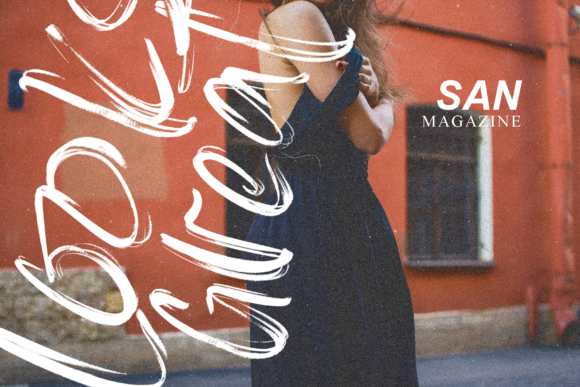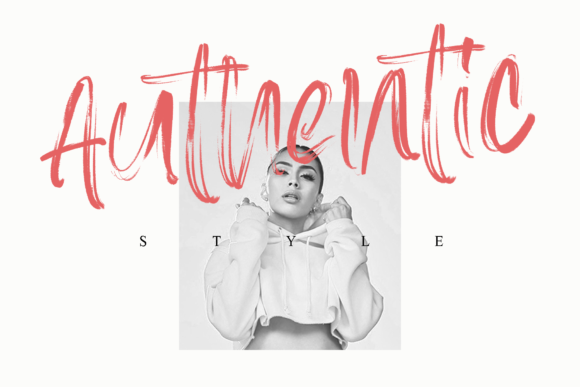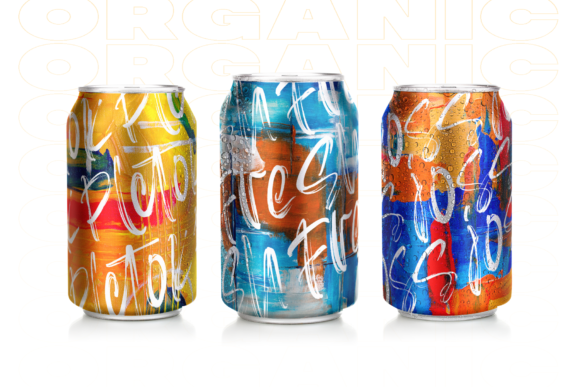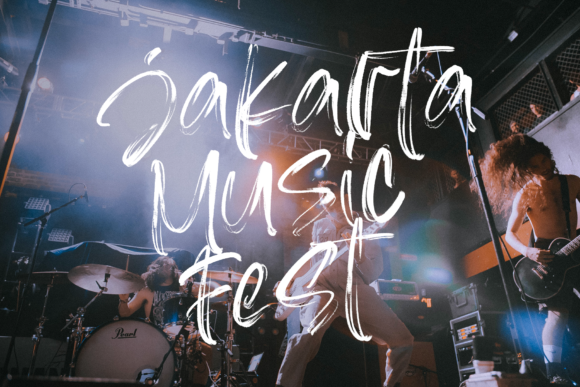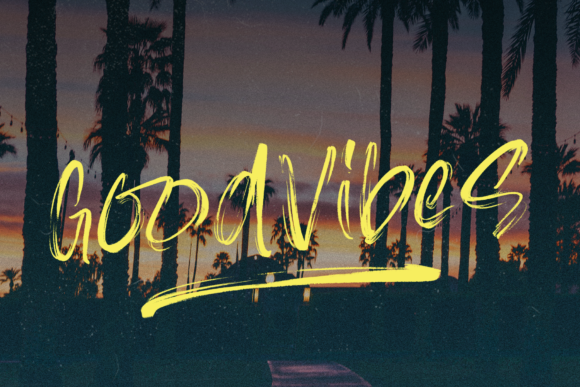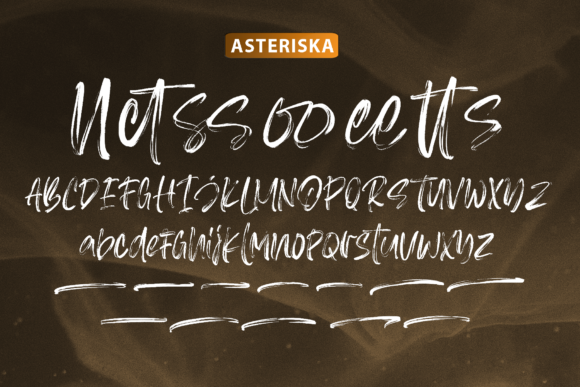
The Designer’s Delight: Exploring the Asteriska Font
I’ll never forget the time I was working on a branding project for a trendy boutique hotel. My client wanted a font that would convey a sense of luxury, yet approachability. I spent hours scouring through font libraries, but nothing seemed quite right. That was until I stumbled upon the Asteriska Font. Its unique blend of strength and elegance instantly won me over, and I knew I had found the perfect fit for my project.
First Impressions: A Dynamic Display Font
Asteriska is a dynamic and beautiful display font that looks strong, realistic, and has a unique touch. Its bold and eye-catching design makes it perfect for adding an authentic twist to any design project. Whether you’re a designer, crafter, or creative hobbyist, Asteriska is sure to inspire your next creation.
- ✨ Unique and authentic design that adds a touch of elegance to any project
- ✅ Strong and realistic appearance that commands attention
- 🎨 Color font (Opentype-SVG) with stunning visual effects
The Designer Inspiration Behind Asteriska
While the true inspiration behind Asteriska remains a mystery, it’s clear that the designer had a passion for creating unique and authentic fonts. Perhaps the designer was inspired by the beauty of handwritten typography, or the elegance of luxury branding. Whatever the inspiration, Asteriska is a true masterpiece that is sure to delight designers and crafters alike.